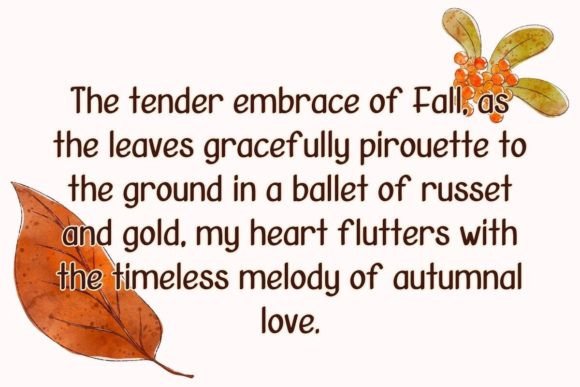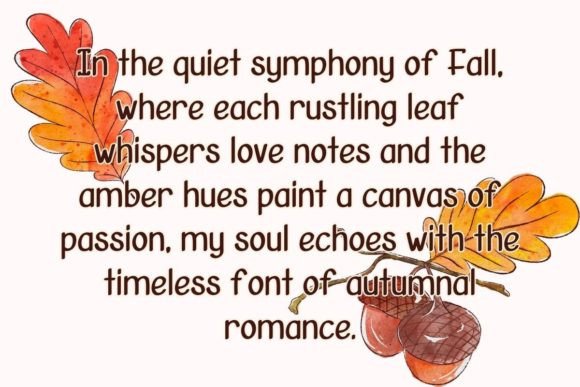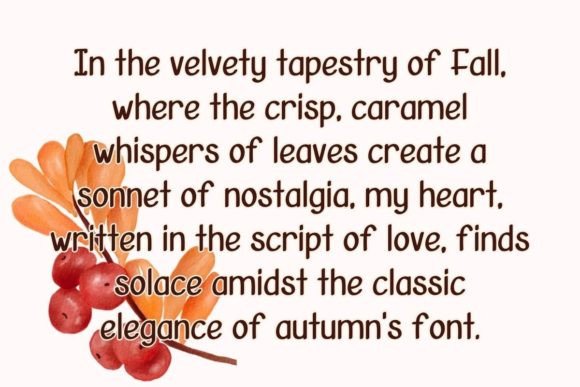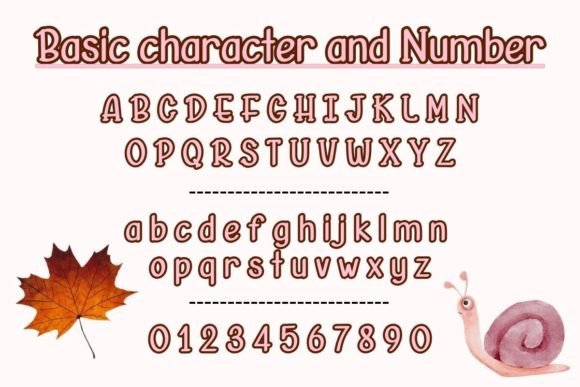
Introduction to In My Fall Era Font Font
Fonts play a crucial role in design, and the In My Fall Era Font font is a typeface that brings both character and versatility to any project. Whether you’re working on a branding project, a website, or a print design, the In My Fall Era Font font offers a unique style that can elevate your work.
βIn my Fall Era font, I delicately craft poetic verses that dance with the romance of autumn, where the crisp embrace of golden leaves and the warm hues of pumpkin spice evoke a symphony of emotions, echoing the tender whispers of natureβs love affair with the enchanting season of Fall.
βIn my Fall Era font, I delicately craft poetic verses that dance with the romance of autumn, where the crisp embrace of golden leaves and the warm hues of pumpkin spice evoke a symphony of emotions,
Key Features of In My Fall Era Font Font
Why Choose In My Fall Era Font Font?
The In My Fall Era Font font is more than just a typeface β it’s a design tool that helps you communicate your message with style and clarity. Its unique character set and versatile design make it suitable for a wide range of applications, from elegant invitations to bold headlines.
With its carefully crafted letterforms and balanced proportions, the In My Fall Era Font font ensures readability and visual appeal across all mediums.
What makes In My Fall Era Font font special?
The In My Fall Era Font font stands out with its unique design, exceptional readability, and versatility across various design applications.